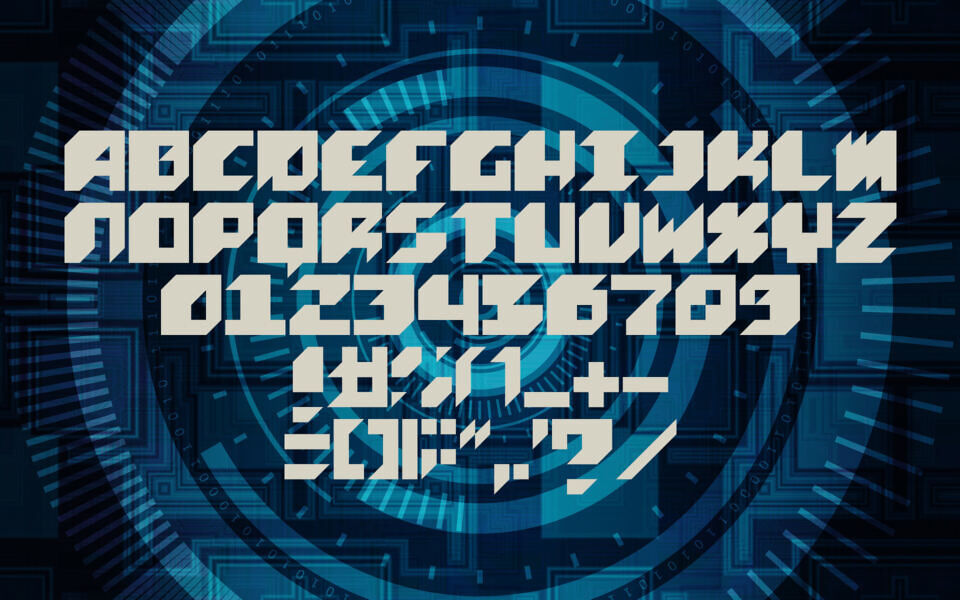
Maque Font
Maque is a striking, tech-inspired display font designed by Denys Chumak. Characterized by its heavy weight and sharp, angular geometry, the typeface exudes a futuristic, cyberpunk aesthetic. Its letterforms feature aggressive slants and unconventional notches that mimic digital circuitry or mechanical components.
This bold, blocky construction makes Maque ideal for high-impact titles, gaming interfaces, and sci-fi branding. Whether used for posters or logos, this versatile font delivers a powerful, avant-garde visual presence that commands attention in any modern graphic design project.